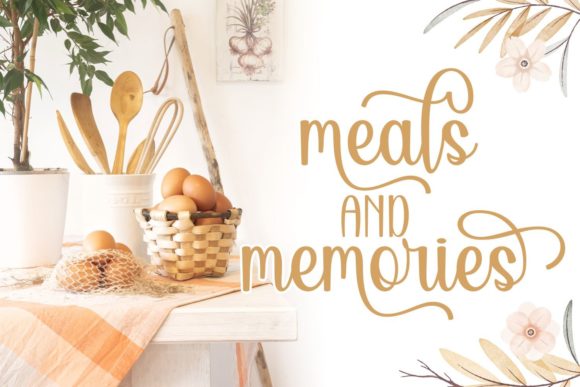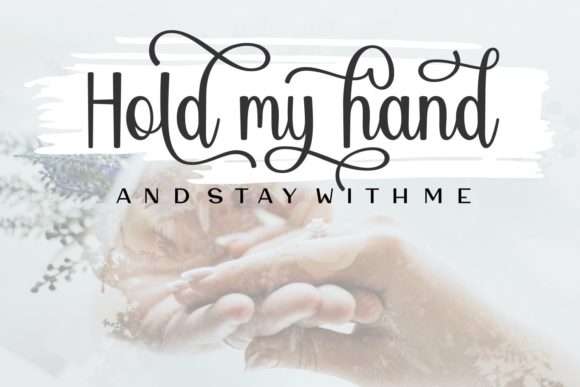
Believe Together Font
db-ku.com - Script & Handwritten -- Believe Together is a distinct graceful script font. Fall for its ravishing style and use it to create gorgeous designs. This font is PUA encoded which means you can access all glyphs and swashes with ease!